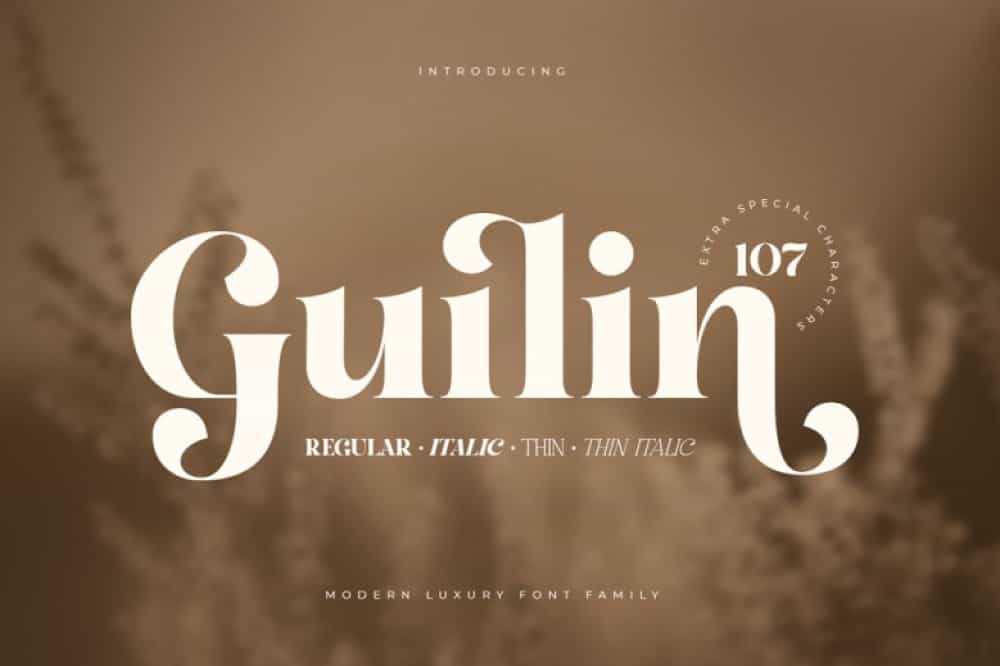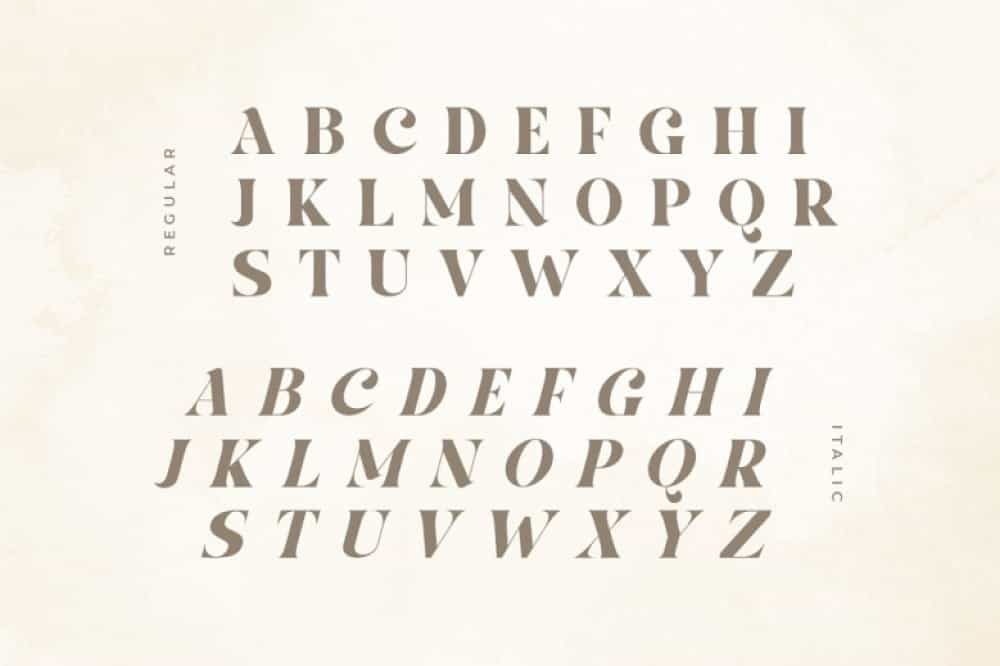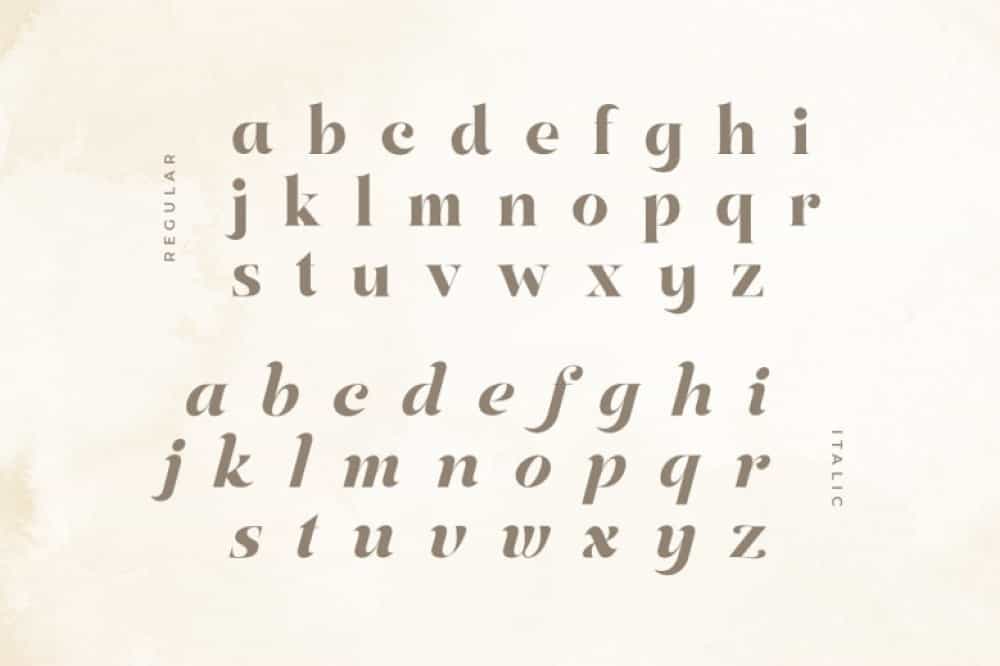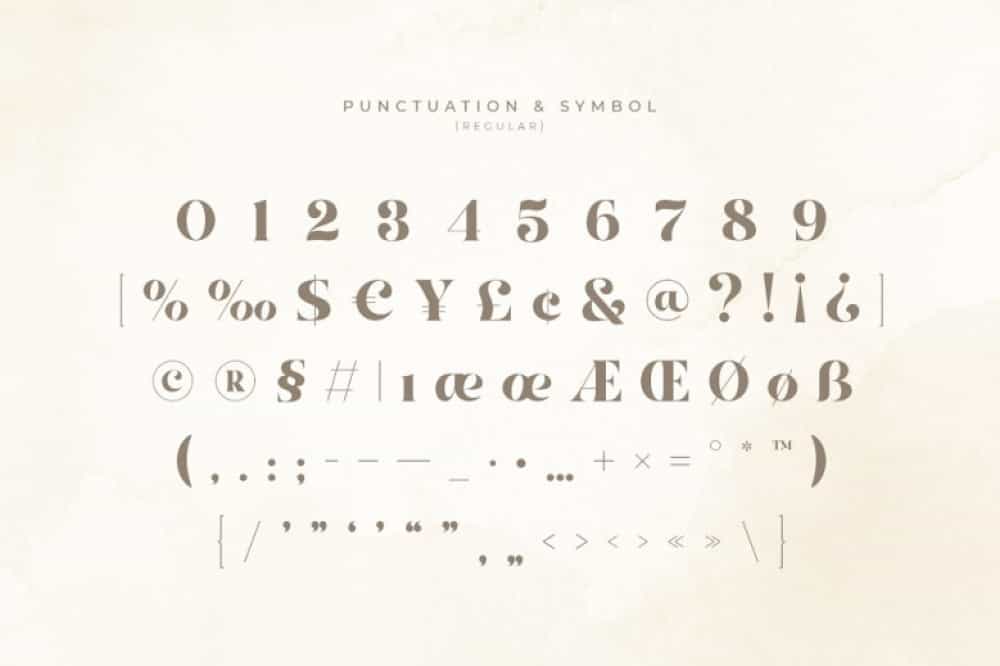
Guilin Font
Guilin is our new retro serif font designed for branding purposes; it’s a modern take on the classic serif with distinctive characters and the possibilities of adding value to your brand’s identity. It is nice to inform the designer or product owner that require solutions concerning how to bring beauty and modern look to their design.